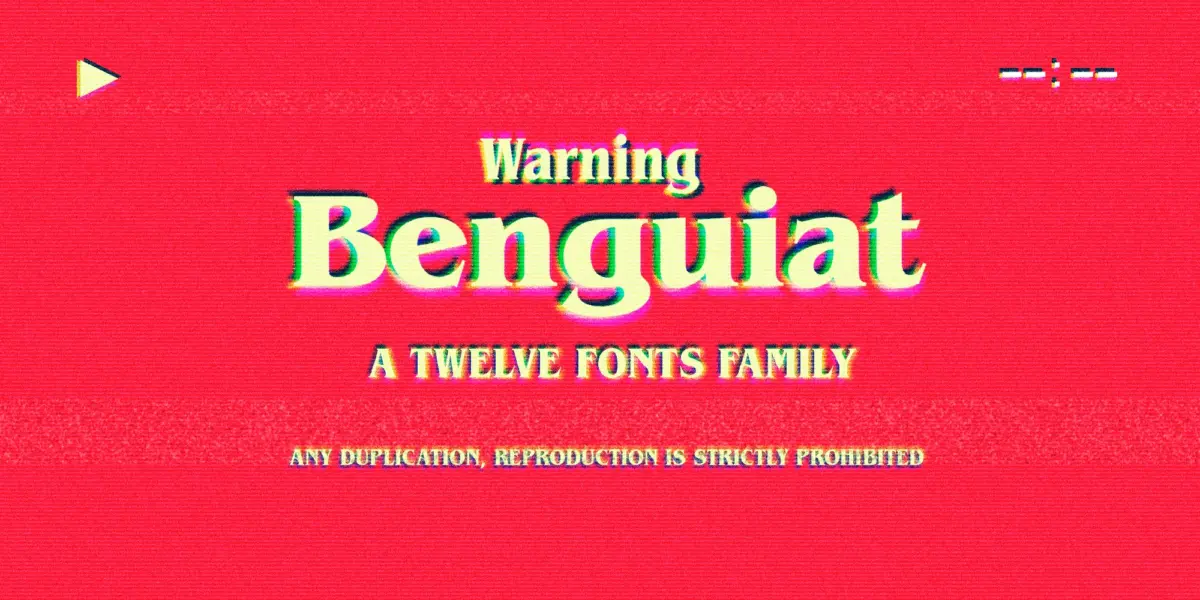
Adobe Creative Cloud Expands Typography Arsenal with 665 New Fonts from Monotype
SAN JOSE, Calif. — Adobe has announced a major expansion of its typographic library for Adobe Creative Cloud subscribers. Through a newly minted partnership with renowned type foundry Monotype, designers, publishers, and digital creators now have immediate access to 665 new fonts spanning 41 distinct type families.
The update bridges historic craftsmanship with modern digital requirements. Many of the newly added typefaces trace their lineage back to the early and mid-20th century—eras that fundamentally shaped modern graphic design, publishing, and visual communication. Having undergone continuous refinements as they transitioned from hot-metal and phototype to digital formats, these foundational typefaces are expected to become staple assets in professional design toolkits worldwide.
Main Facts
The integration of the Monotype collection represents one of the most substantial library updates for Adobe’s font-serving platform (formerly known as Typekit) in recent years.
• Total Additions: 665 individual fonts.
• Type Families: 41 distinct families.
• Historical Scope: Spans designs originating from the 16th century (revival cuts) through the golden age of 20th-century typesetting and modern digital extensions.
• Notable Inclusions: Iconic typefaces such as ITC Benguiat, ITC Avant Garde Gothic, Gill Sans Nova, Plantin, Rockwell Nova, Sabon, and Trade Gothic Next.
Chronology of Craft: A Historical Timeline of the New Additions
To understand the value of Adobe’s latest update, one must look at the historical trajectory of the typefaces now included in the Creative Cloud subscription. These designs are not mere digital novelties; they are enduring historical artifacts that have evolved over centuries.
The 16th Century: The Foundation of Modern Printing
• Plantin (Original Cuts & 1913 Revival): Named after the legendary 16th-century French printer Christophe Plantin, the historical roots of this typeface stretch back centuries. However, the specific digital iterations available today are based on the 1913 hot-metal revival created for the Monotype Corporation. Designed to offer high legibility in tightly packed columns, Plantin served as the direct aesthetic and structural blueprint for Times New Roman, arguably the most famous typeface in human history.
The Early-to-Mid 20th Century: The Age of Mechanical and Geometric Innovation
• Gill Sans (1928–2028): Commissioned by Stanley Morison and designed by Eric Gill, Gill Sans was famously adopted by the London Underground in the mid-20th century. Its clean, humanist sans-serif lines came to define British modernism. The newly added Gill Sans Nova family extends this legacy, incorporating condensed widths, shading, and outline variants developed by later generations of typographers.
• Rockwell (1934): Monotype’s designers posed a deceptively simple question in 1934: What happens when you apply mechanical serifs to a geometric sans-serif framework like Futura? The answer was Rockwell, a slab-serif powerhouse. It quickly became a darling for mid-century advertising, corporate branding, and editorial headlines due to its commanding presence and structural rigidity.
The Mid-20th Century: Precision and Flexibility
• Sabon (1967): Commissioned under a notoriously stringent set of constraints—it had to look identical whether cast on Monotype, Linotype, or foundry metal types, and it had to match the exact character count of an older Garamond-based face—typographer Jan Tschichold rose to the challenge. Released in 1967, Sabon became an instant classic for book design, celebrated for its harmonious proportions and exceptional readability.
• Trade Gothic (1948 onward): Designed by Jackson Burke, Trade Gothic grew organically over decades as a utilitarian sans-serif family. The inclusion of Trade Gothic Next and its Soft Rounded variations provides modern designers with a smoother, less abrupt alternative to traditional industrial grotesques, making it ideal for modern infographics and user interfaces.
The Late 20th Century: Pop Culture Icons and Avant-Garde Expression
• ITC Avant Garde Gothic (1970s): Originally conceived by Herb Lubalin and Tom Carnase for the masthead of Avant Garde magazine, the typeface was later expanded into a full alphabet by Ed Benguiat. Its geometric purity and distinctive alternate glyphs made it a defining aesthetic of 1970s counterculture and corporate branding alike.
As Creative Cloud continues to evolve past its origins as a mere software suite into a comprehensive digital workspace, updates of this caliber ensure that typography remains at the very heart of professional design.